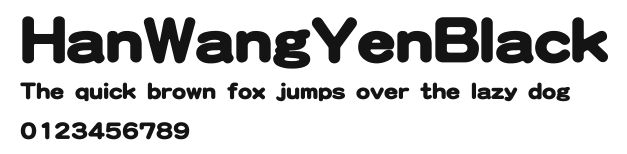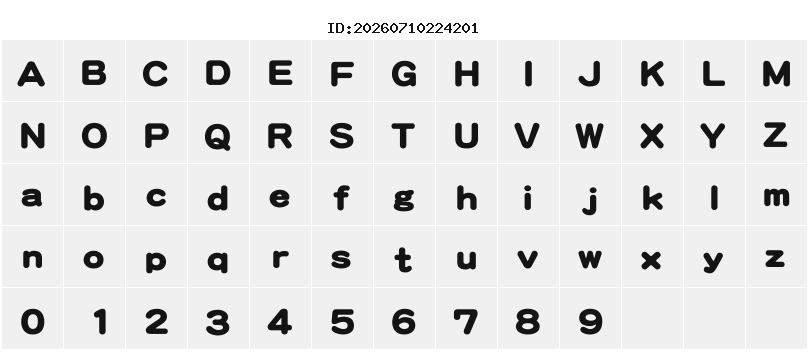
• Font Name: HanWangYenBlack
• Full Font Name: HanWangYenBlack
• Version: HtWang Fonts(1), March 8, 2002; 1.00, initial release
• Character Count: 13969
About HanWangYenBlack.ttf
HanWangYenBlack.ttf is a modern, elegant sans-serif font designed for ultimate readability and visual harmony. Perfect for branding, headlines, web design, and print materials.